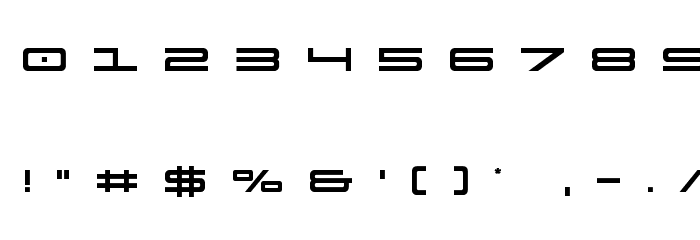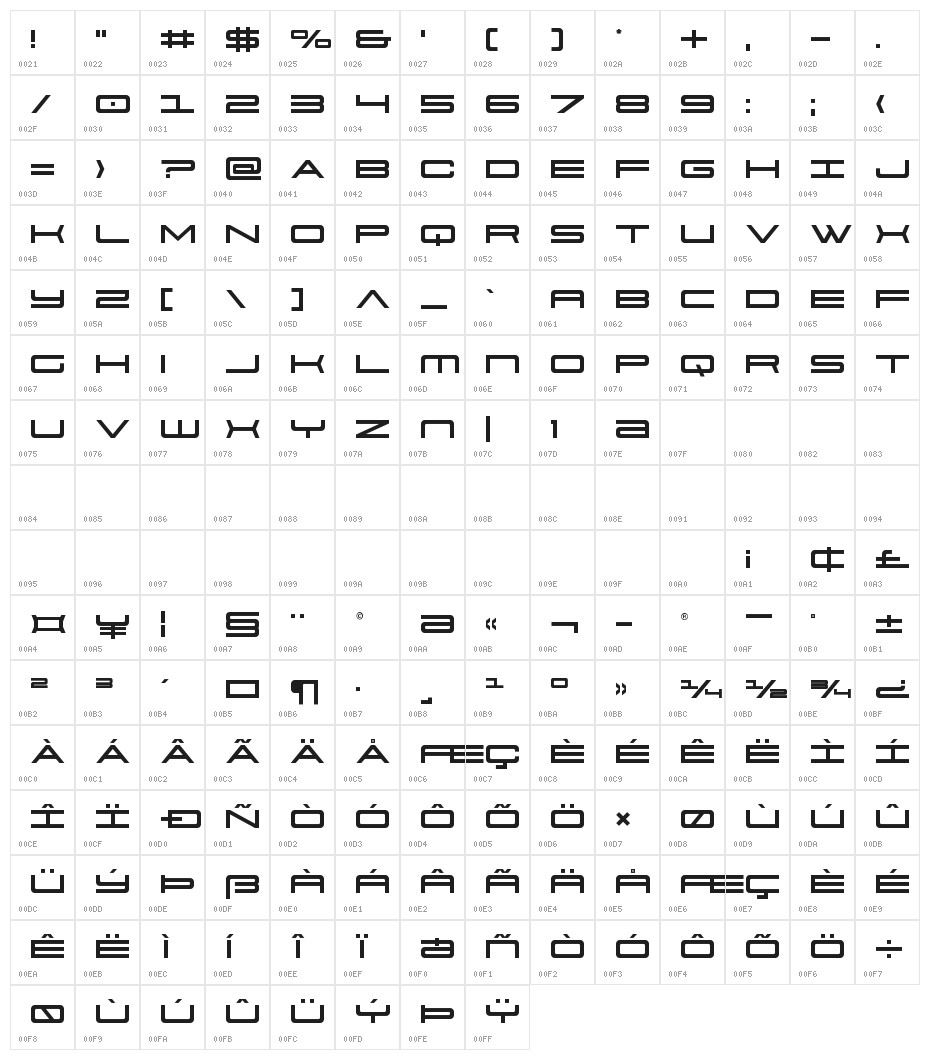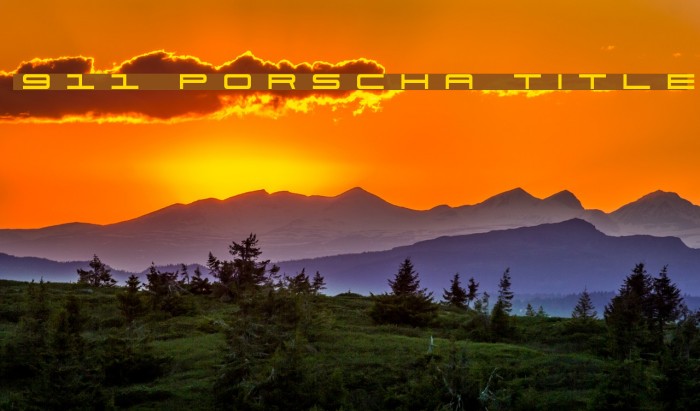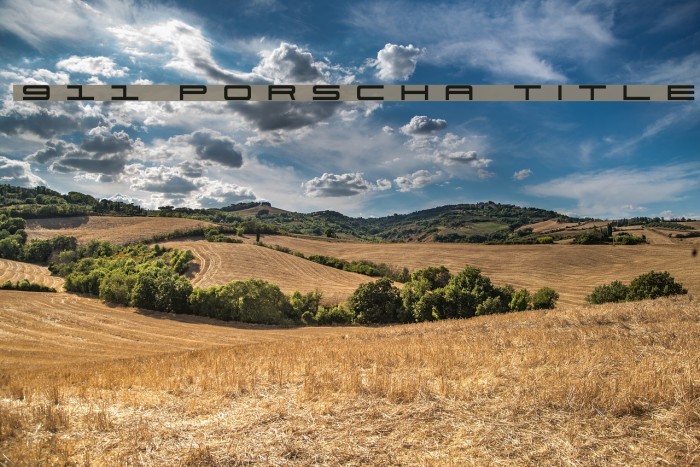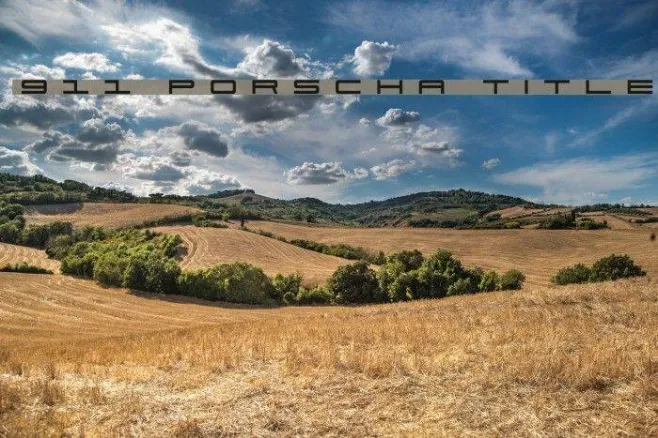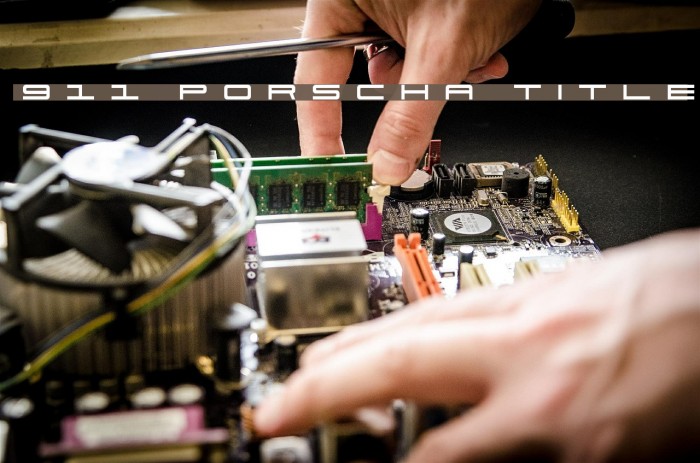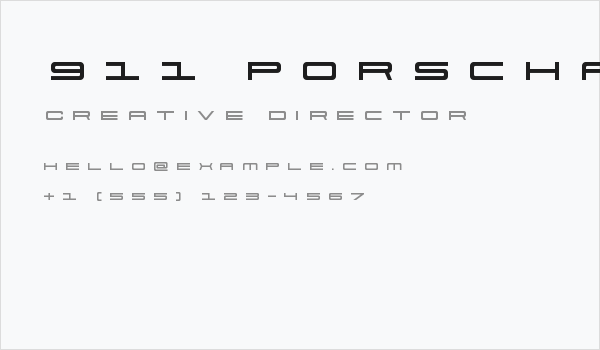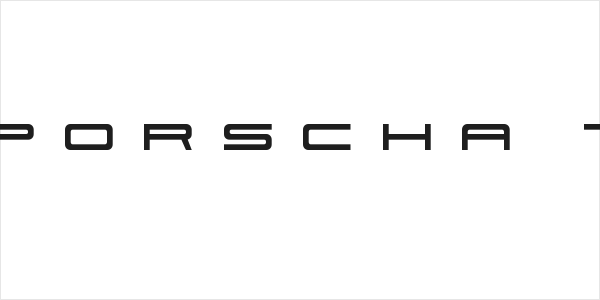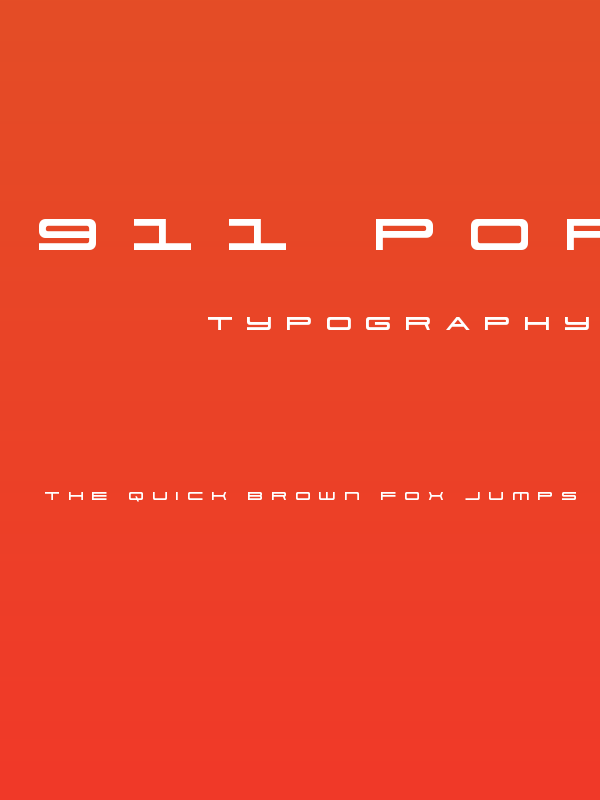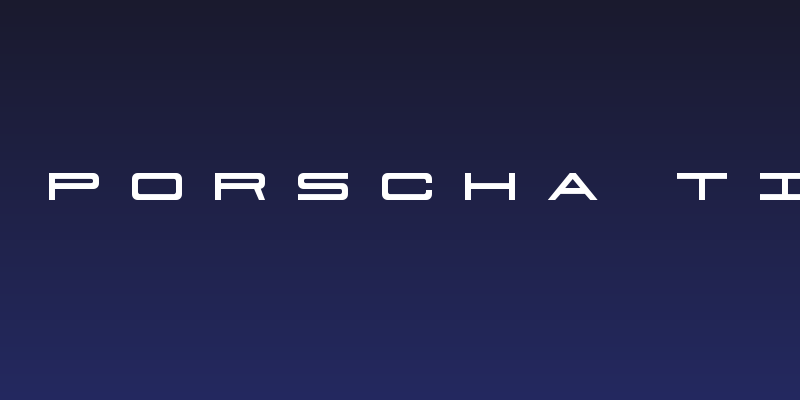
911 Porscha Title Font
911 Porscha Title Description
This font features a sleek, modern design with a futuristic aesthetic. The characters are geometric and angular, with a consistent stroke width that gives it a uniform appearance. The uppercase and lowercase letters maintain a similar structure, enhancing readability while preserving a unique style. The numerals and special characters are designed to match the overall theme, making it suitable for digital and print applications. The font's clean lines and sharp edges make it ideal for projects that require a contemporary and tech-savvy look.